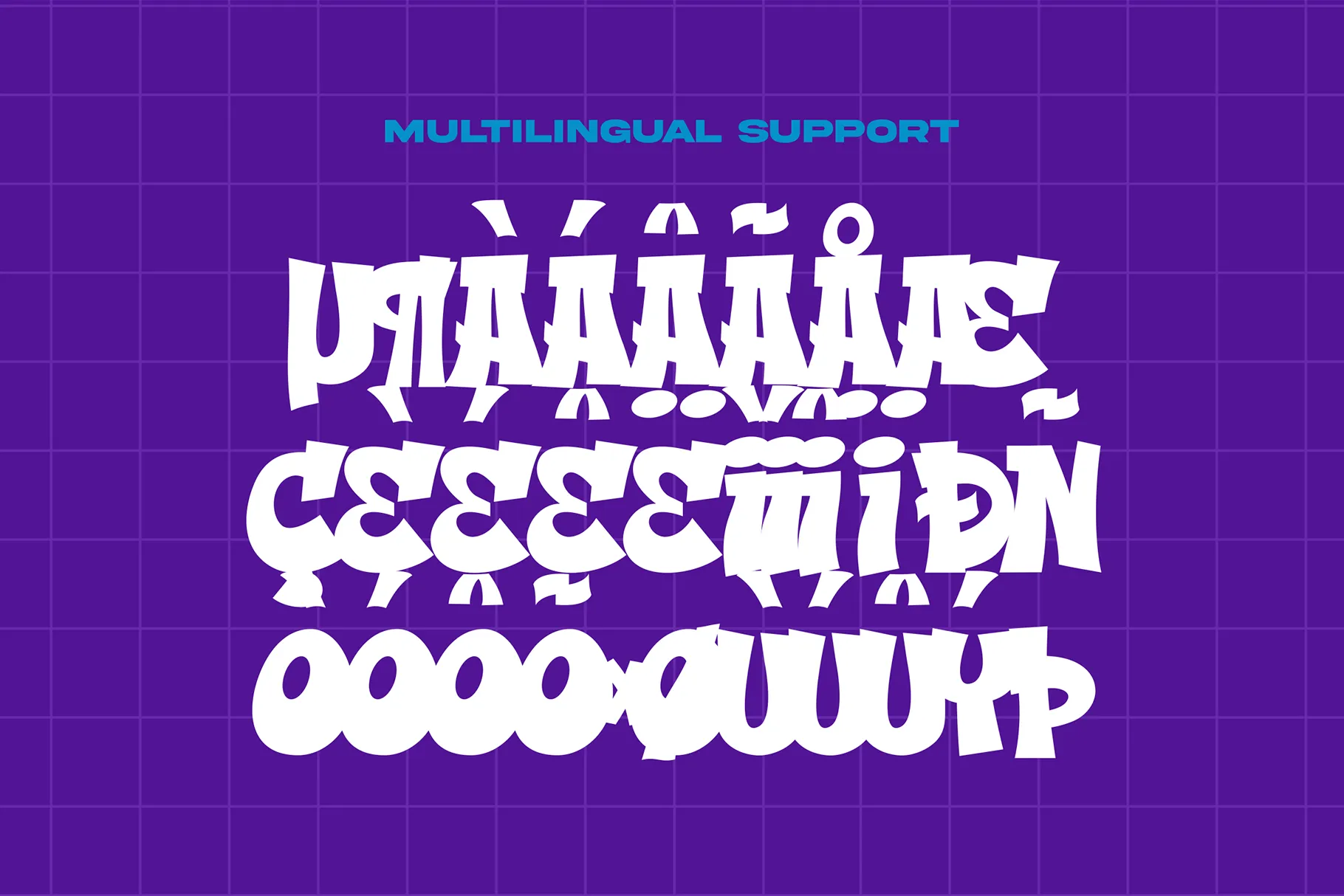
Urban Hope is a dynamic urban graffiti font crafted to bring bold character and authentic street vibes to your work. With its raw strokes, expressive curves, and a mix of uppercase and lowercase letters, this typeface captures the essence of street culture—rebellious, loud, and undeniably cool.
Perfectly suited for album covers, graffiti-style posters, branding projects, and digital artwork, Urban Hope offers a versatile tool for designers who want to make a bold visual statement.
✦ Features:
- Full Character Set – Includes uppercase, lowercase, numbers & punctuation
- Graffiti-Inspired Design – Authentic handwritten style with an edgy personality
- High Impact Visuals – Designed for headlines, titles, and bold layouts
- Multilingual Support – Covers major Latin-based languages
- Street-Ready Aesthetic – Perfect for underground, urban, or hip-hop themes
✦ Why You’ll Love It:
- Upper & Lowercase Combo – More flexibility for logo and text composition
- True Street Energy – Adds attitude and movement to any design
- Versatile Across Mediums – Print, digital, merch, covers, and more
- Creative Power – Instantly elevate your design with graffiti soul
Urban Hope isn’t just a font—it’s a movement. Let your designs speak the language of the streets.